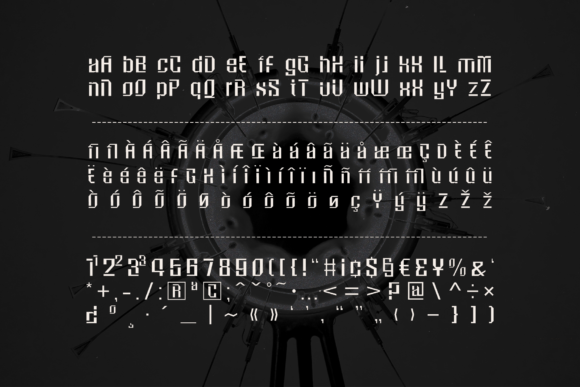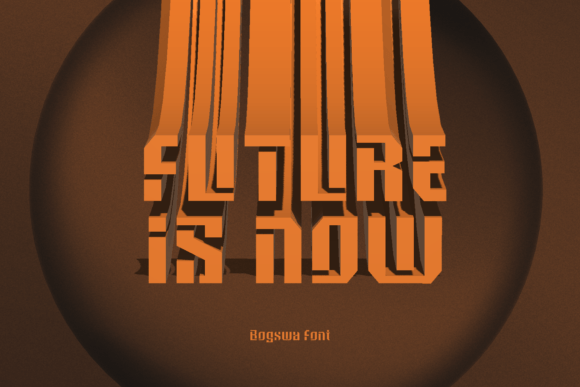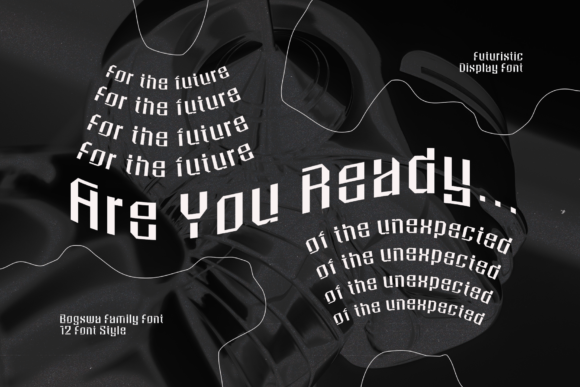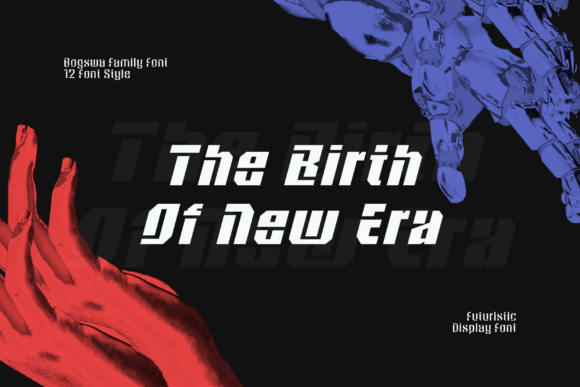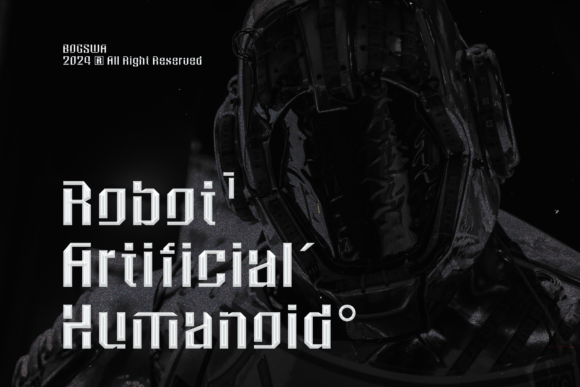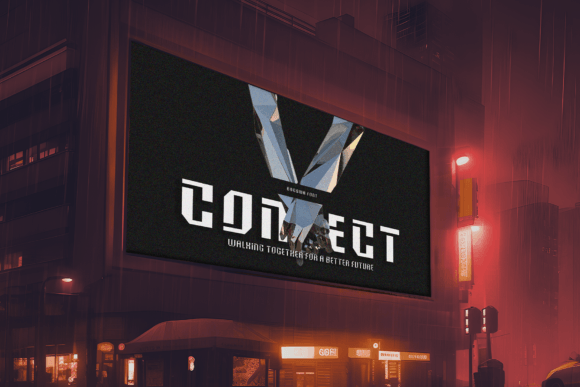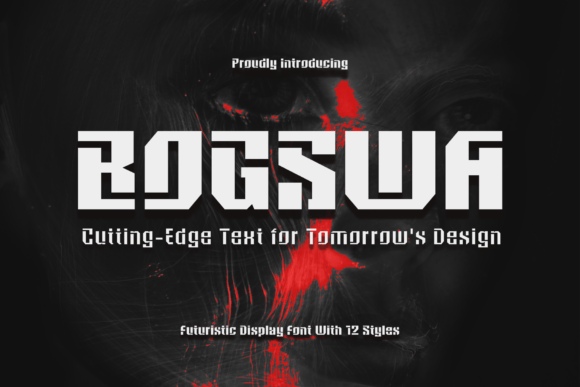
Bogswa Font: Elevate Your Designs with a Futuristic Geometric Typeface
In the realm of typography, fonts play a pivotal role in shaping the visual identity of a design. For designers and crafters seeking to infuse their projects with a modern, futuristic flair, Bogswa Font emerges as a game-changer. This cutting-edge geometric typeface is engineered to propel your designs into the future, armed with sharp angles, clean lines, and a bold stencil aesthetic.
The Unique Features of Bogswa Font
Bogswa’s design is rooted in its ability to merge modernity with a technological edge. The crisp angles and clean lines inherent in its design create a sense of sleekness and sophistication, evoking the latest technological advancements. This makes Bogswa an ideal choice for projects that demand a contemporary look, such as tech startups, innovative gadgets, or forward-thinking brands.
What sets Bogswa apart is its bold stencil style, which adds an industrial edge to its geometric simplicity. This unique visual texture not only makes your text stand out but also provides a distinctive aesthetic that can be pivotal in differentiating your brand or project in a crowded market. Whether you’re working on a logo, a website, or marketing materials, Bogswa’s industrial touch can add depth and character to your designs.
Customization at Its Finest: 12 Styles to Choose From
Understanding the diverse needs of designers and crafters, Bogswa Font offers an impressive range of customization options. With 12 different styles available, you have the flexibility to tailor your text to fit the specific requirements of your project. This variety ensures that you can achieve the perfect balance of style and functionality, whether you’re aiming for something sleek and professional or bold and experimental.
The availability of multiple styles within the Bogswa Font family means you can experiment with different looks without having to switch between fonts. This not only streamlines your design process but also allows for a cohesive visual identity across your project. From subtle variations to more dramatic transformations, the range of styles at your disposal empowers you to push the boundaries of creativity.
Applications of Bogswa Font
Bogswa’s versatility makes it suitable for a wide array of applications. Here are a few areas where this futuristic typeface can make a significant impact:
• Branding and Logos: The bold and modern aesthetic of Bogswa can help create memorable logos and brand identities that stand out.
• Web Design: Enhance your website’s typography with a font that communicates innovation and cutting-edge technology.
• Marketing Materials: From brochures to billboards, Bogswa’s industrial edge can add a compelling visual element to your marketing campaigns.
• Product Packaging: Give your product packaging a modern look that reflects the quality and innovation of your product.
Bogswa Font is more than just a typeface; it’s a design statement. Its fusion of geometric precision, futuristic style, and industrial edge makes it an invaluable asset for designers and crafters looking to make a mark. With its clean lines, sharp angles, and a range of 12 customizable styles, Bogswa offers the tools to elevate your designs into the future. Embrace the possibilities that Bogswa presents and discover how this cutting-edge geometric typeface can transform your projects.